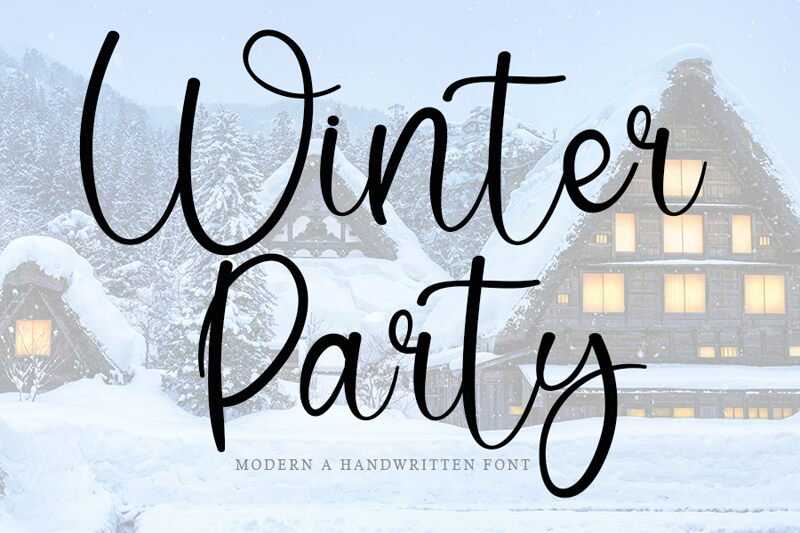
Winter Party
Winter Party, a creation of Etik Fatimah, is a handwritten font that exudes the warmth and joy of festive gatherings in the chill of winter. Its semi-light weight bridges the gap between delicate finesse and readable clarity, making it an exquisite choice for personalizing holiday cards, event invitations, or any project that calls for a touch of handmade charm.
The flowing letters of Winter Party mimic the elegance of calligraphy with a modern twist. Each character is crafted to convey movement and personality, bringing a human touch to digital designs. This font's aesthetic appeal lies in its ability to add an organic, personal feel to your creations without sacrificing professionalism.
Whether it's branding for boutique businesses or creating standout social media graphics, Winter Party's stylish appearance makes it versatile for various creative endeavors. Its legibility and unique style make it especially suitable for projects aiming to establish an intimate connection with the audience while radiating sophistication and festive flair.